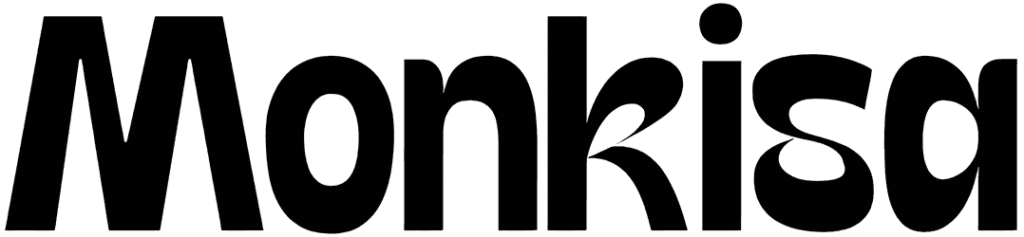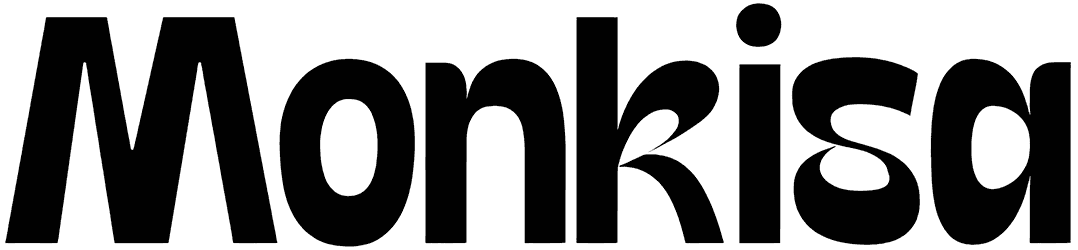
Monkisa Font
Find all the intrigue that’s missing from your typography in the gorgeous letters of Monkisa and make things right in just a click. Think about all the tasteful logos you can make with this typography font for Photography studios, accessories like hats or sunglasses, and even cafes.
As you can see, there’s no limit to this modern font. You owe this strong visual charm to the great contrast between the thick and thin strokes, highlighting your words more than ever.
Monkisa is a new modern classic Art-Deco, inspired display typeface that’s sure to make your design stand out amongst the rest.